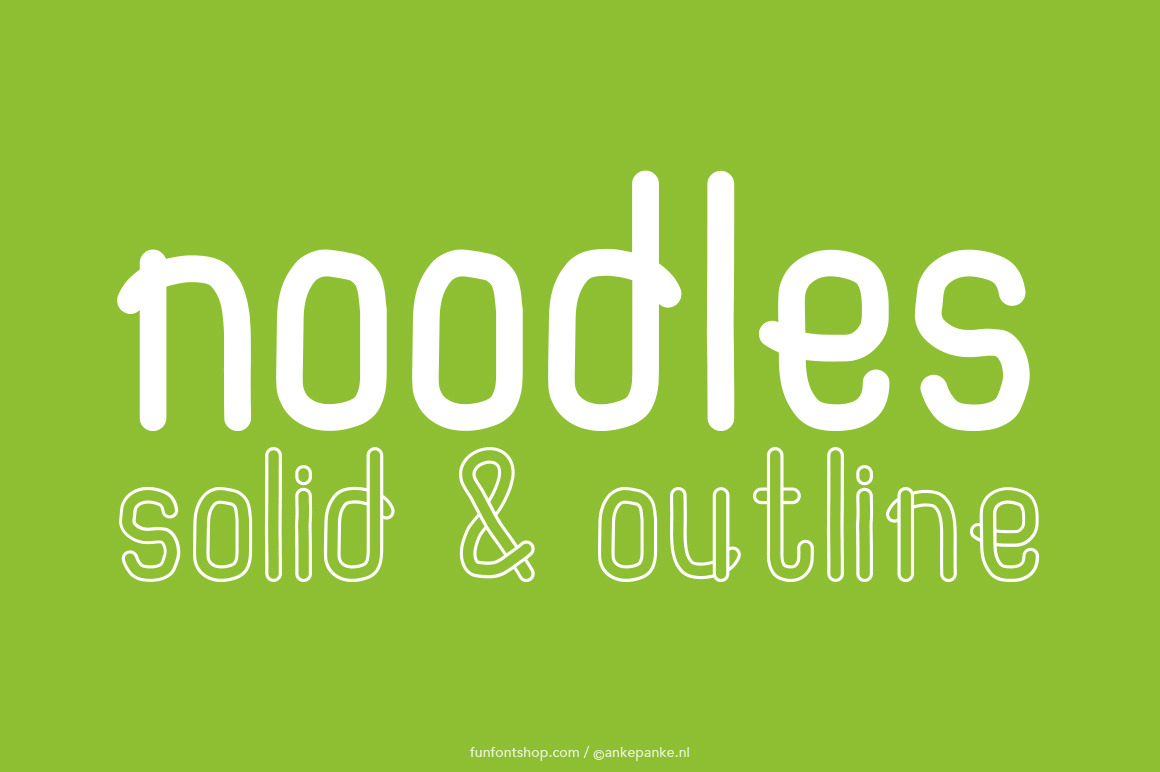
Noodles Font
A fun font with a with an outline and black version included. I imagined creating the letters with noodles, so hence the name. This font is created digitally, so big or small: it's always clean.
- Letters Lowercase and numbers
- Punctuation !?#%&*±+=-_,.:;'"/|£€$@«({[]})»